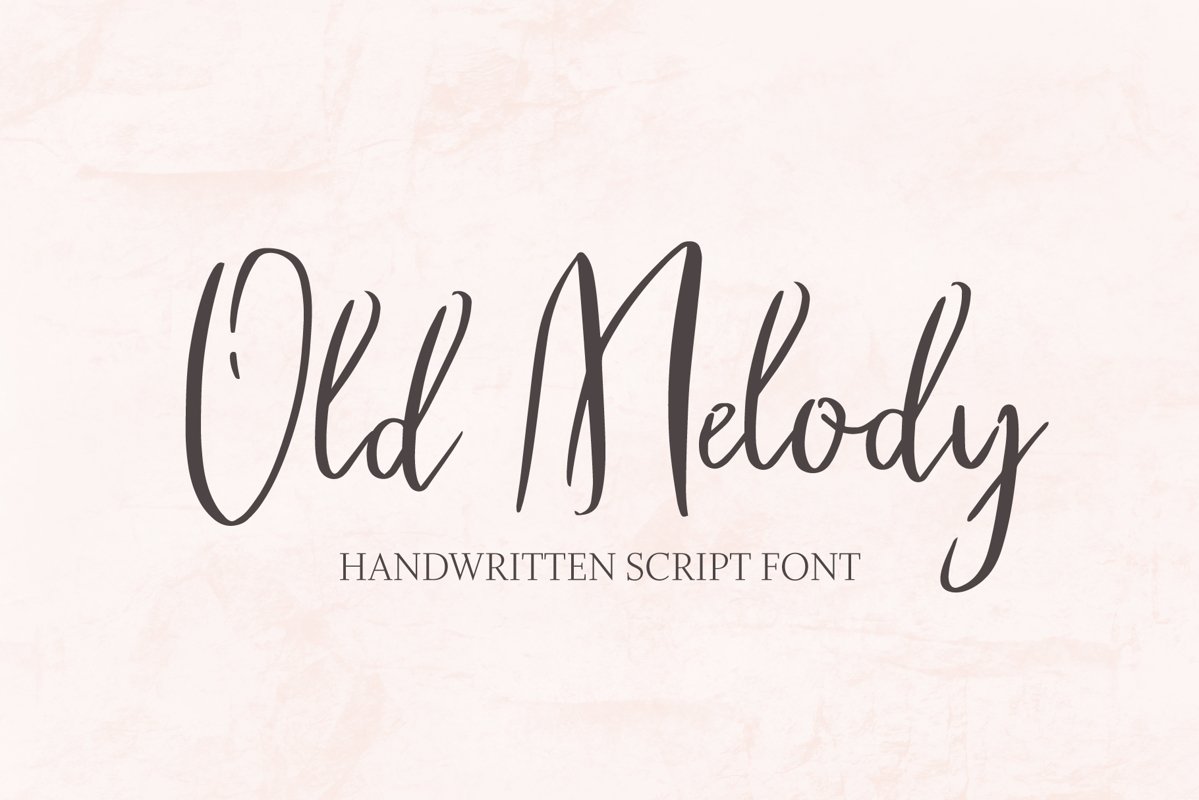
Old Melody Script Font
Old Melody is a feminine calligraphy handwritten script font. It is perfect for branding, wedding invitations, stationery, packaging design, social media, blogs, logo designs, magazines, posters, cards and much more.Old Melody Script includes uppercase and lowercase standard characters, numbers and punctuation, ligatures and lowercase alternates.